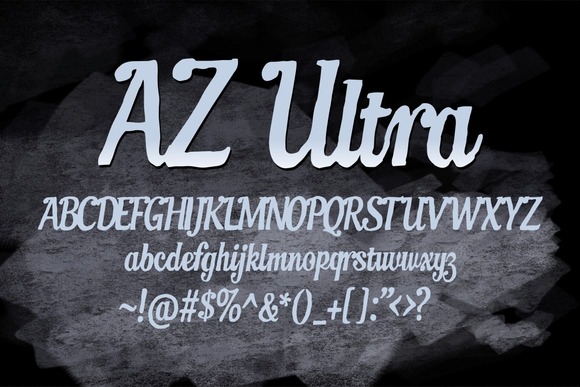
Introducing the AZ Ultra Font, a captivating script typeface that will transform your designs into masterpieces. Inspired by the desire for a flexible and expressive headline font, AZ Ultra is a versatile choice for designers seeking to make a statement.
With its carefully crafted glyphs and flowing lines, AZ Ultra exudes elegance and sophistication, making it perfect for creating eye-catching logos, headlines, and branding materials. Its unique character adds a touch of vintage charm to your projects, evoking a sense of nostalgia and timeless appeal.
**Key Features:**
* **Script Font:** AZ Ultra belongs to the script font family, characterized by its flowing, handwritten-like appearance, adding a touch of elegance and authenticity to your designs.
* **Display Headline Font:** This font is specially designed to excel as a display headline or sub-headline, captivating attention and conveying your message with impact.
* **Easily Changeable Worn Italic:** AZ Ultra's worn italic style can be effortlessly modified to suit your project's needs, giving you complete control over the look and feel of your headlines.
**Benefits:**
* **Create Captivating Designs:** With its visually striking appearance, AZ Ultra empowers you to design captivating logos, headlines, and branding materials that leave a lasting impression.
* **Convey Elegance and Sophistication:** Its graceful lines and refined character exude elegance and sophistication, elevating your designs to a new level of professionalism.
* **Add Vintage Charm:** AZ Ultra's vintage-inspired aesthetic adds a touch of timeless charm to your projects, evoking a sense of nostalgia and enduring appeal.